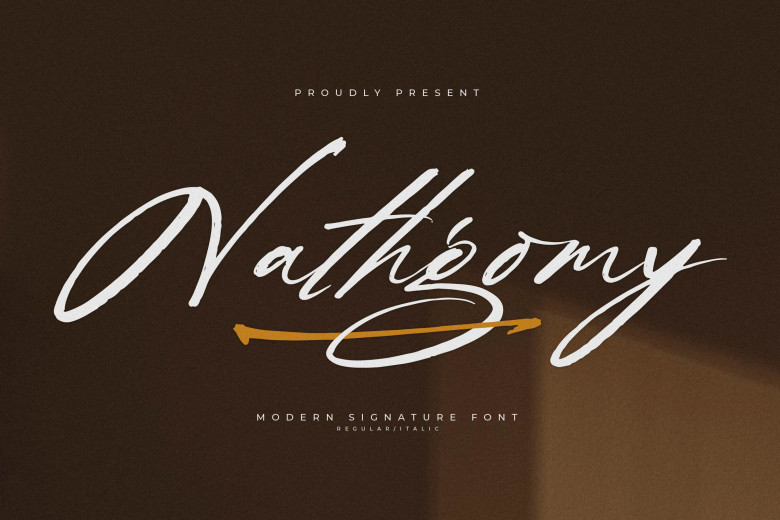
Nathgomy Font
Nathgomy is an elegant handwritten signature font designed with fluid handwriting that can add sophistication to your projects. Be charmed by its distinctive and timeless style before using it to craft beautiful designs!
Nathgomy Signature Font